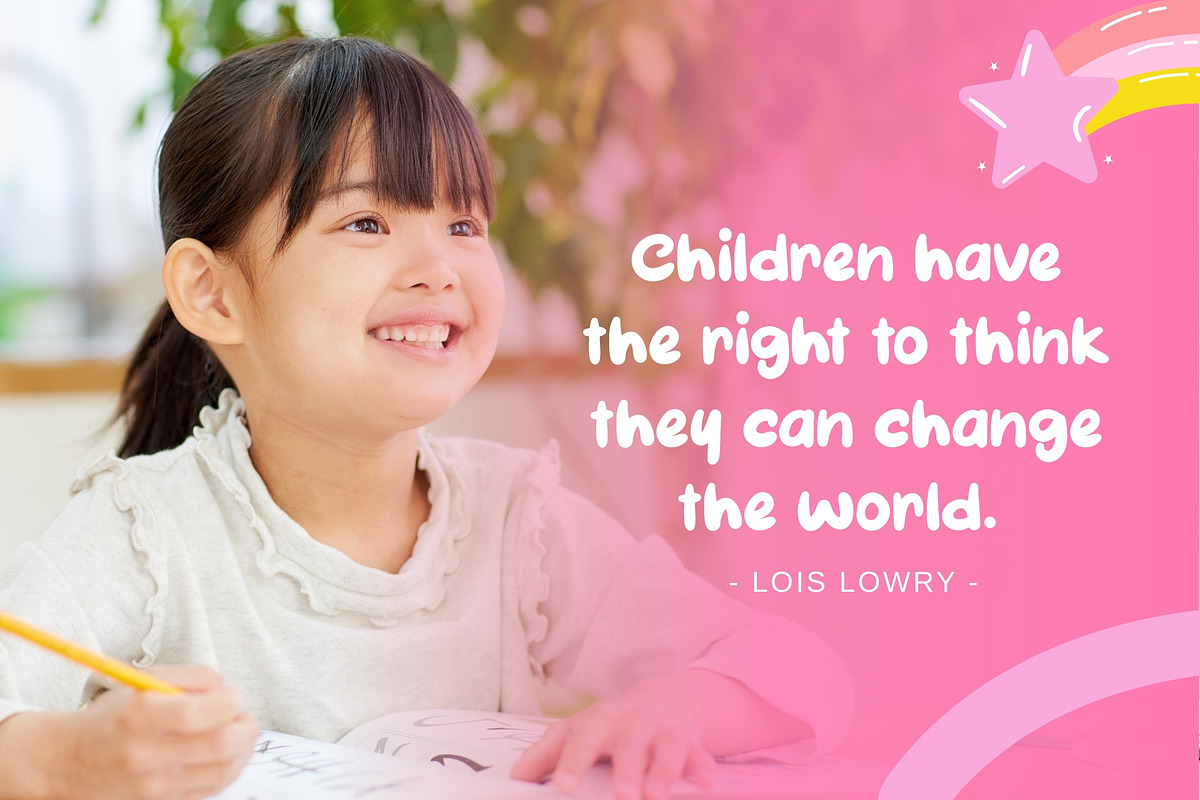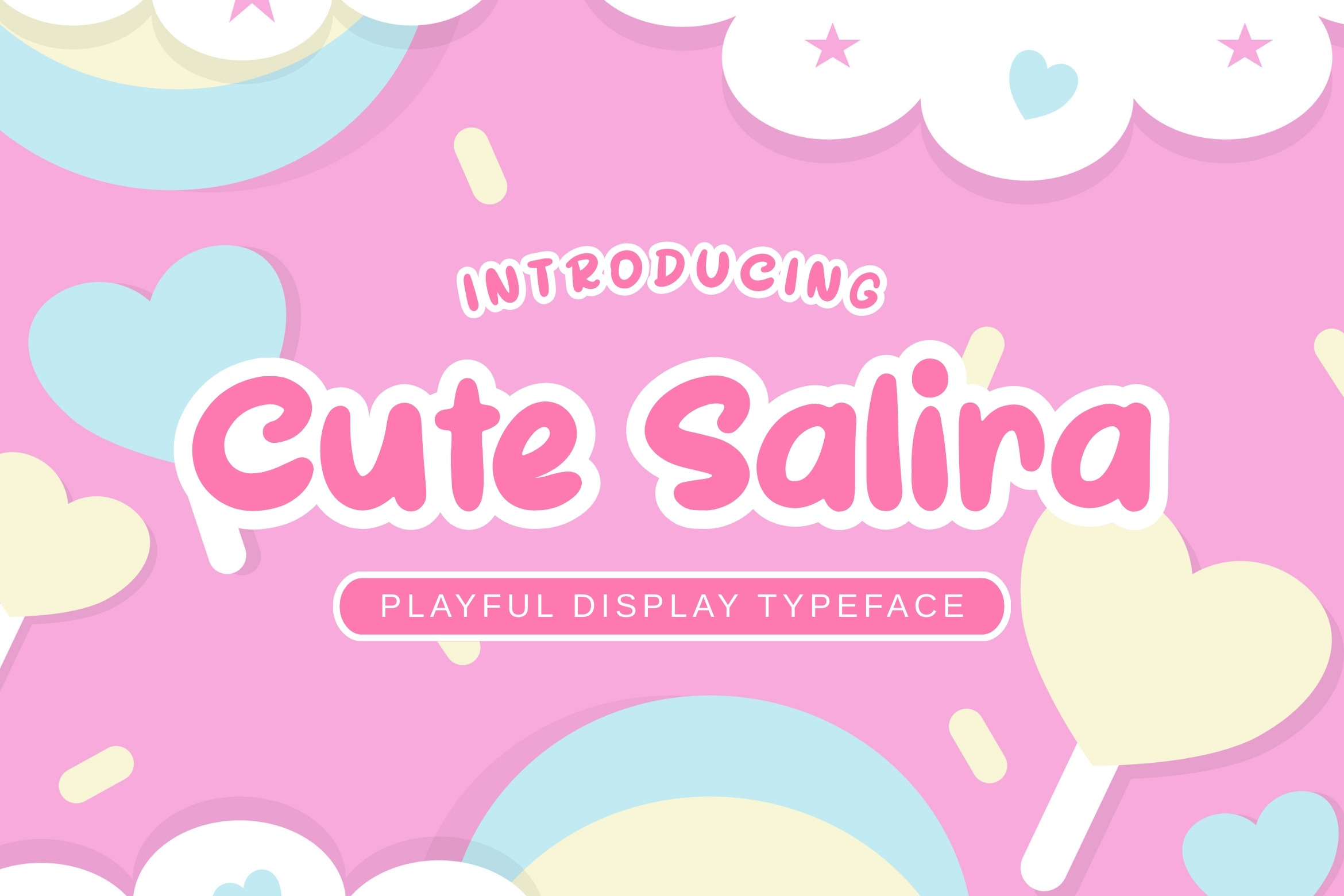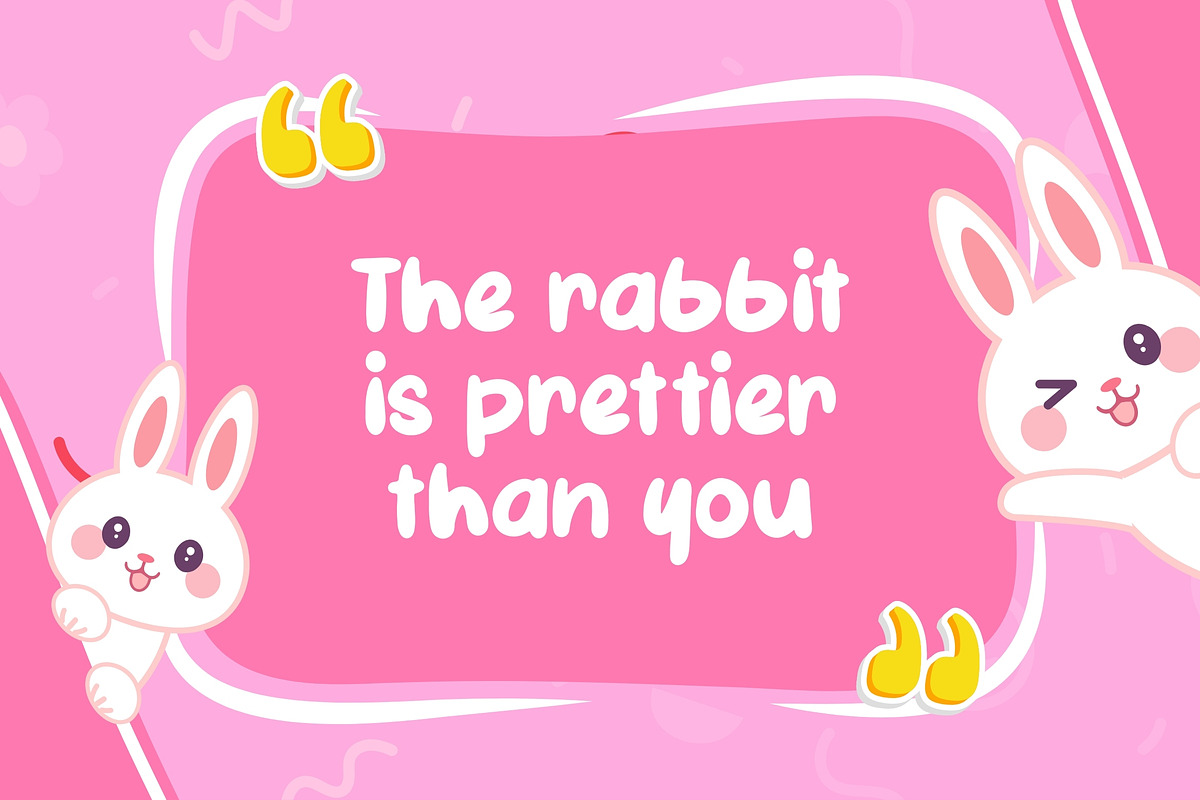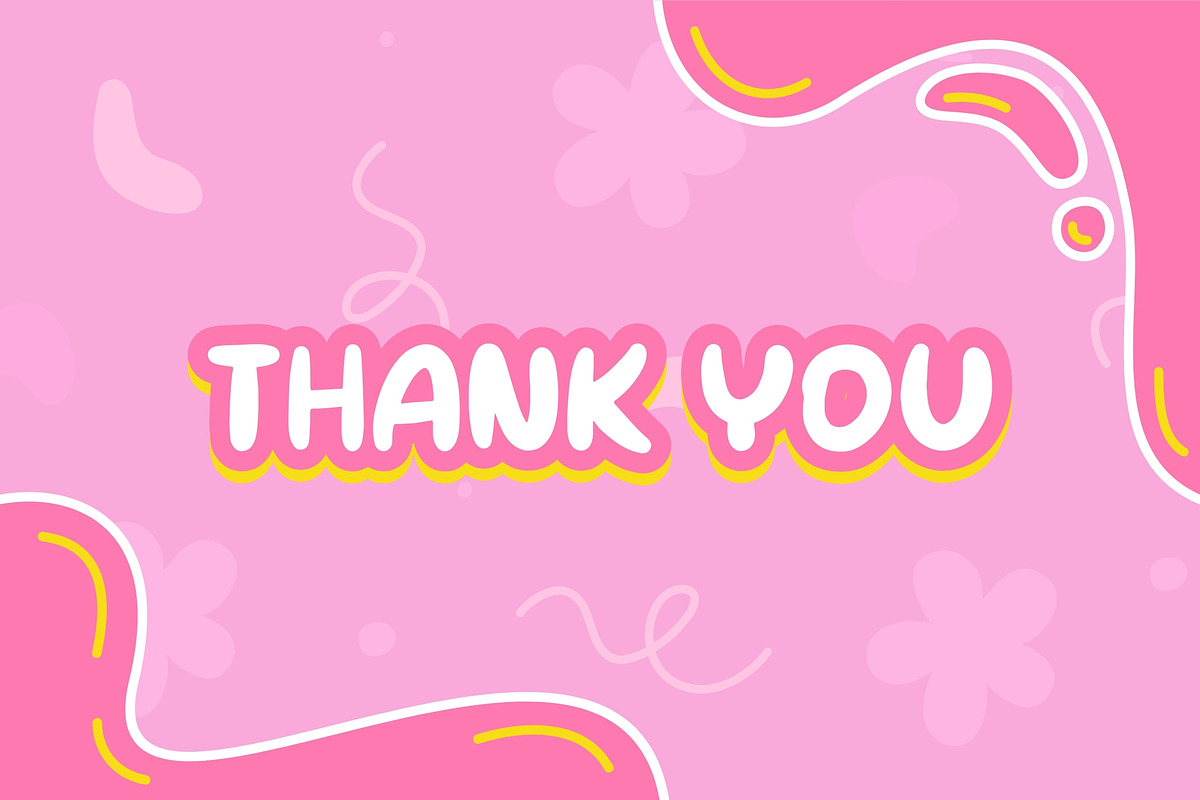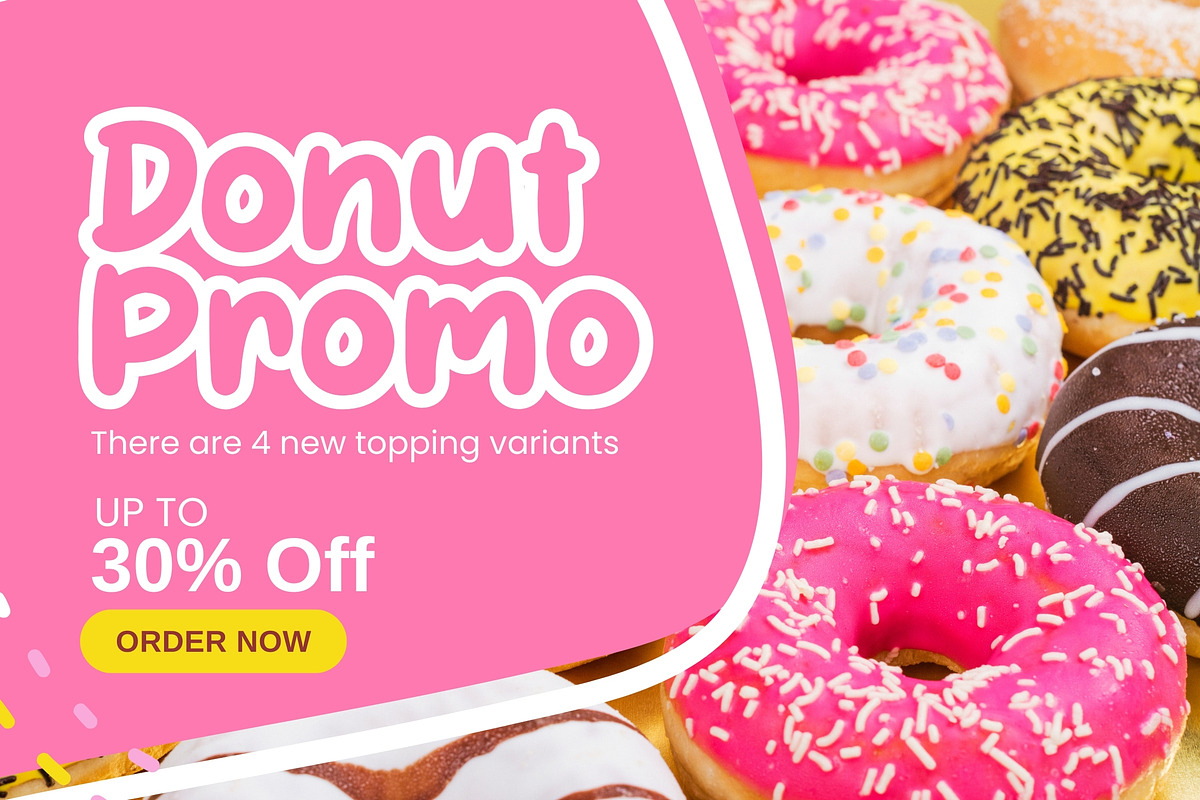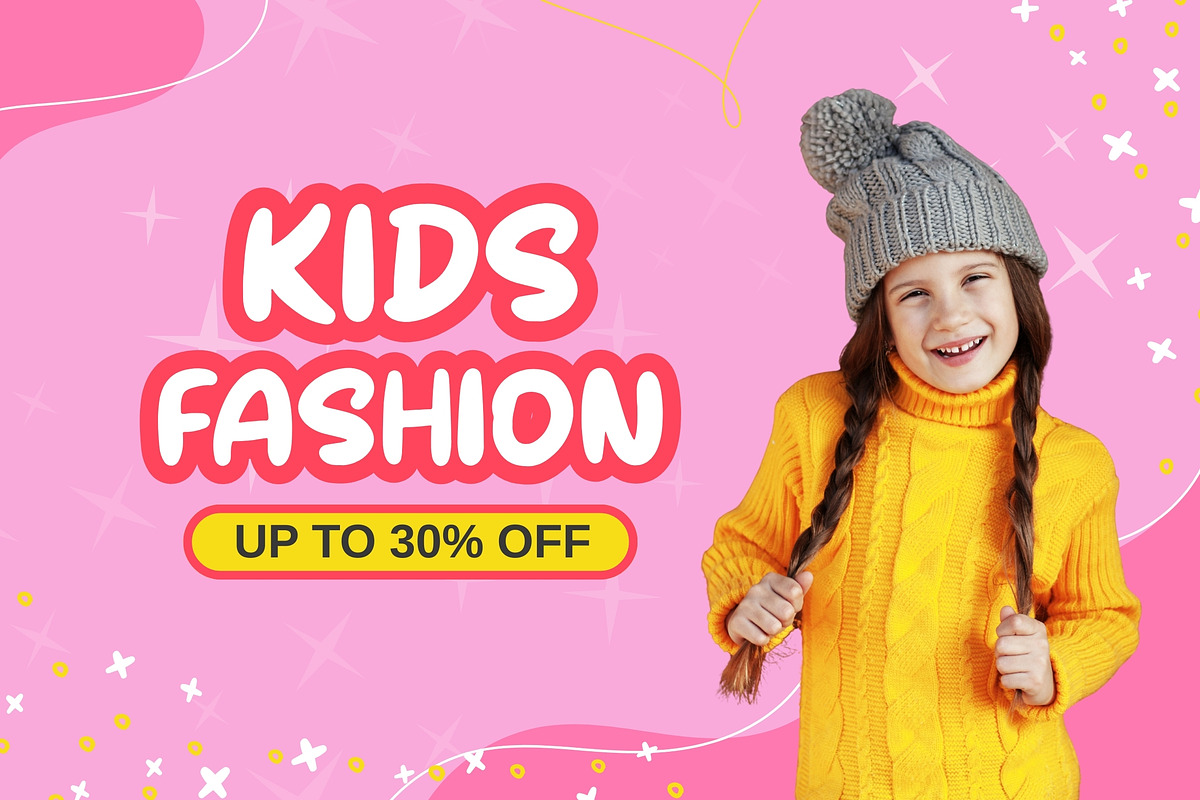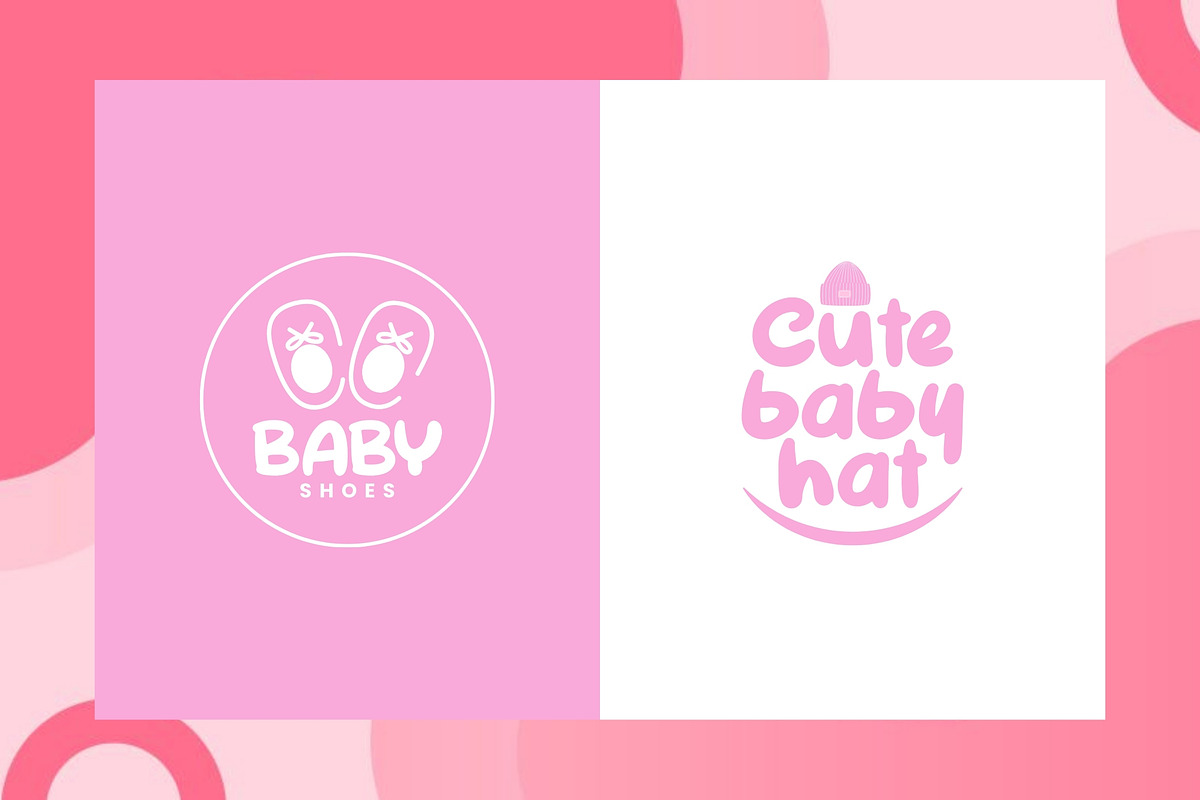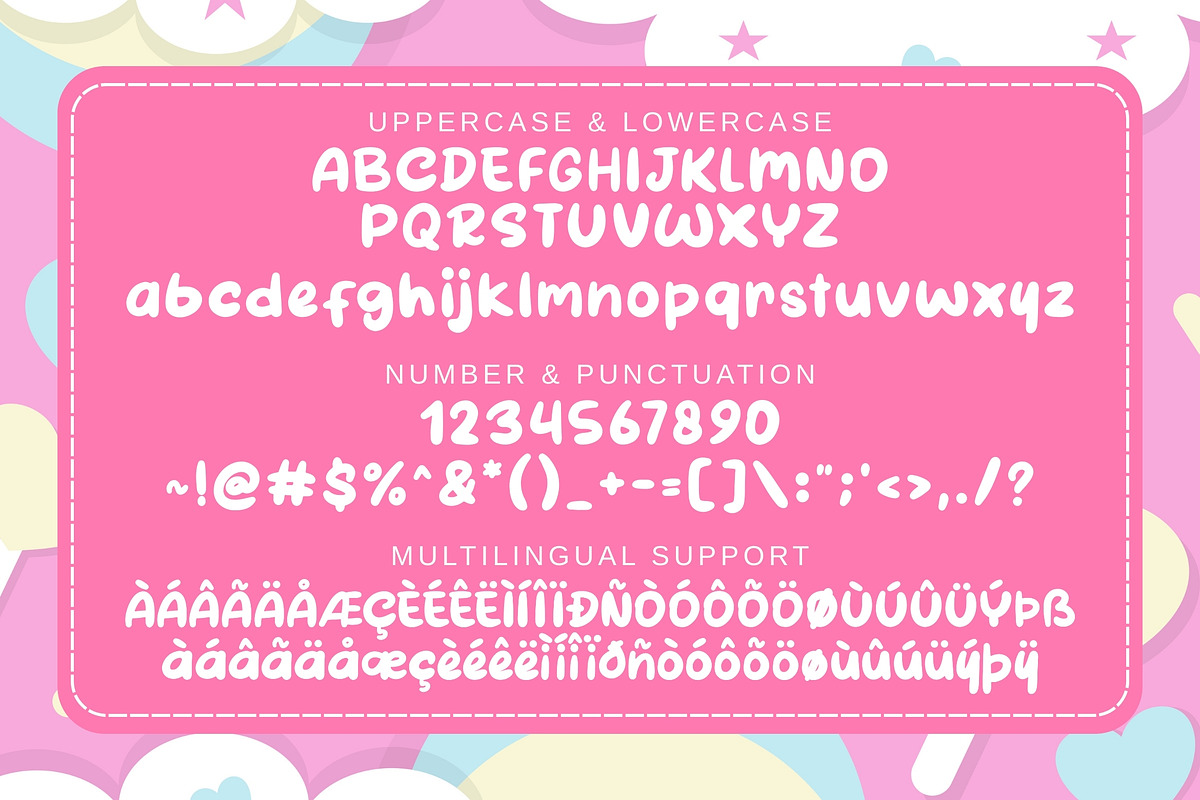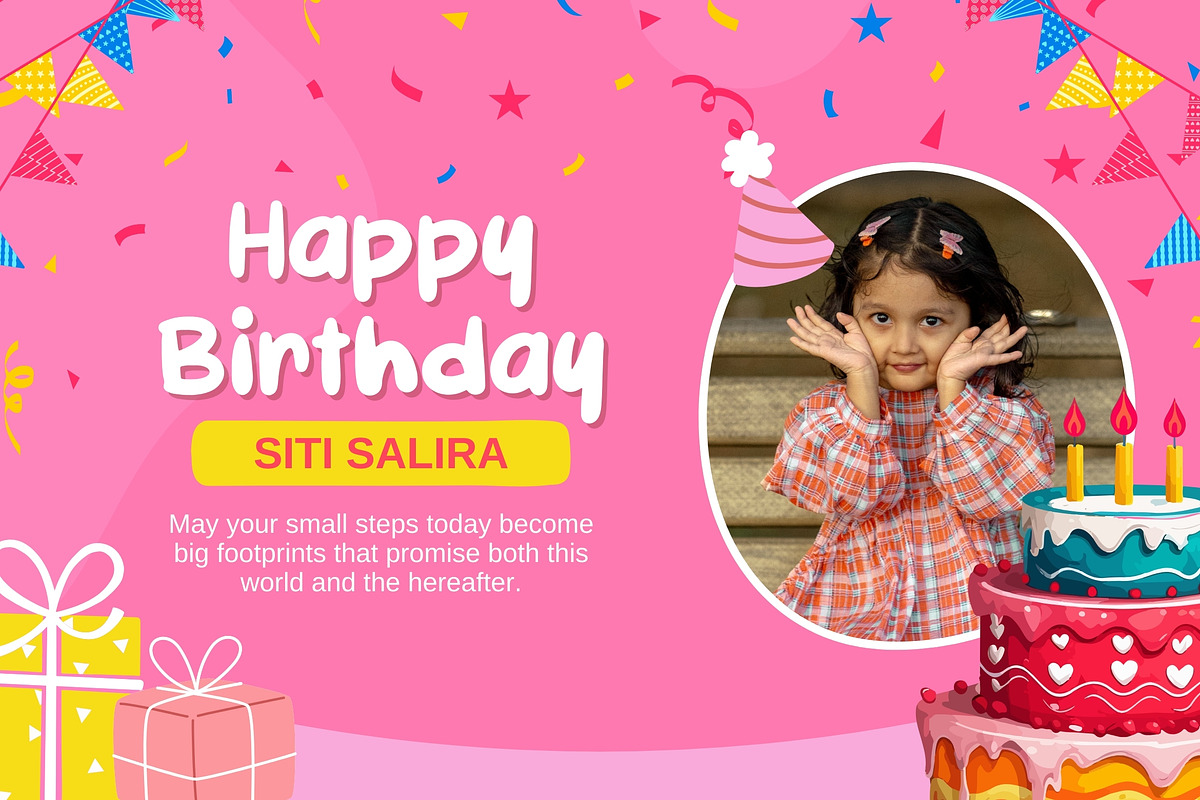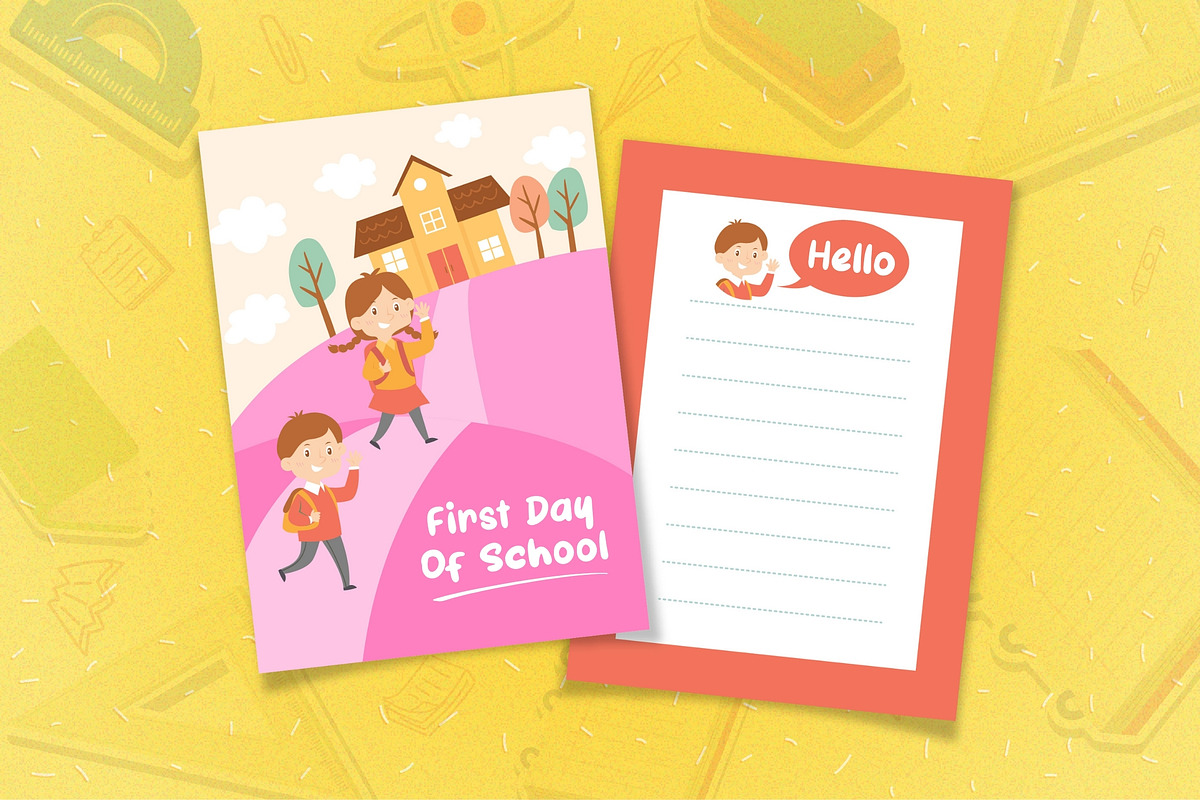
Cute Salira – Bold & Playful Font
Cute Salira is a bold and playful display font created to bring joy, friendliness, and adorable charm into your designs. With its thick strokes, rounded shapes, and bubbly personality, this font instantly makes any project feel fun, cute, and full of life.
Designed especially for children-focused visuals, Cute Salira combines strong readability with a cheerful character, making it perfect for both eye-catching titles and friendly branding.
- Children’s books, learning materials, and worksheets
- Kids brands, toy packaging, and product labels
- Stickers, posters, and playful illustrations
- Cute logos, titles, and headlines
- Social media content with a fun & colorful style
- Bold, rounded, and playful display style
- Multilingual character support
- Kid-friendly and easy to read
- Optimized for print and digital use
Why Choose Cute Salira? Cute Salira is perfect for designers who want to create designs that feel happy, confident, and lovable. Its bold yet soft letterforms help your message stand out while keeping a warm and friendly tone—ideal for children’s brands and cute creative projects.